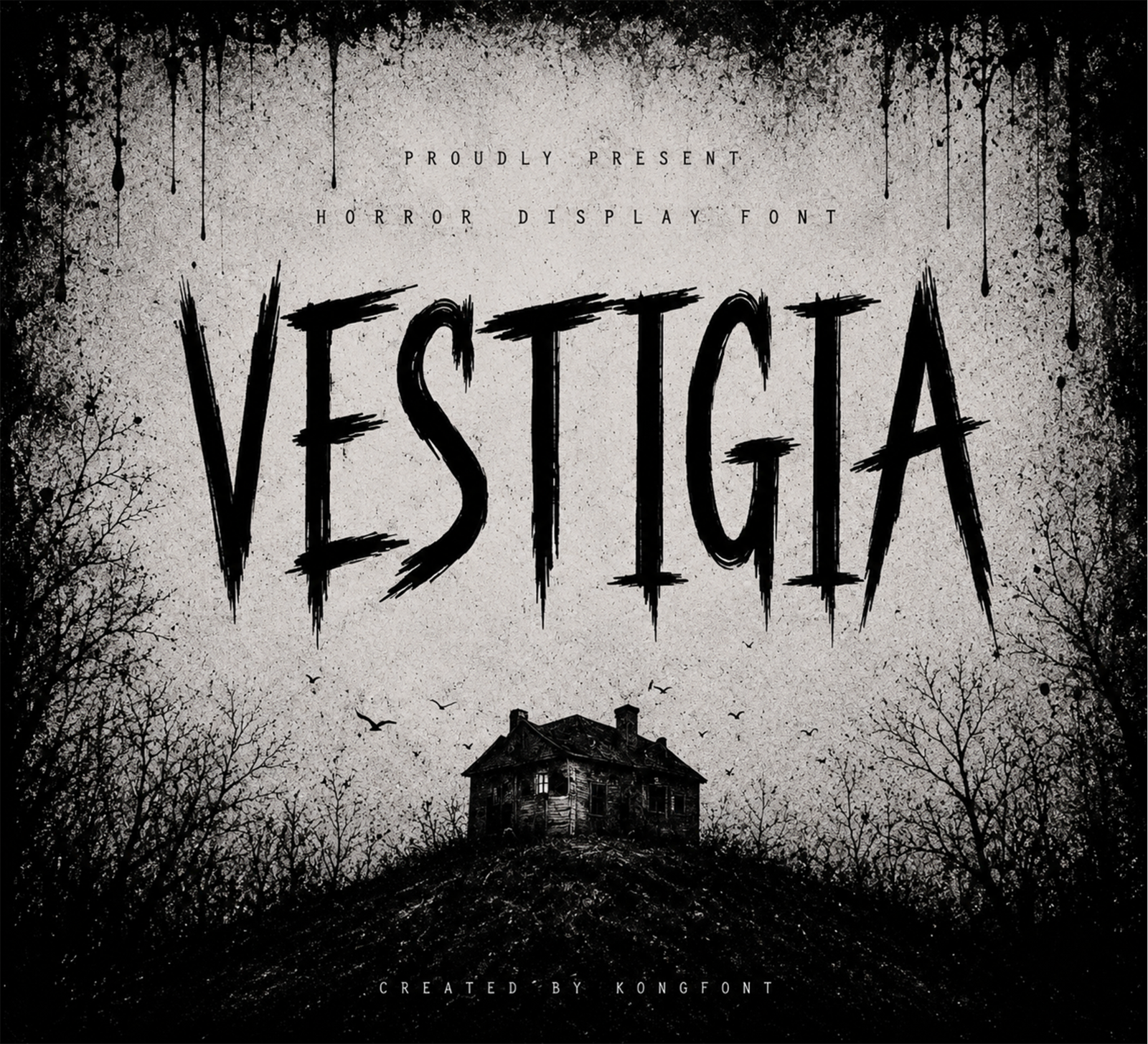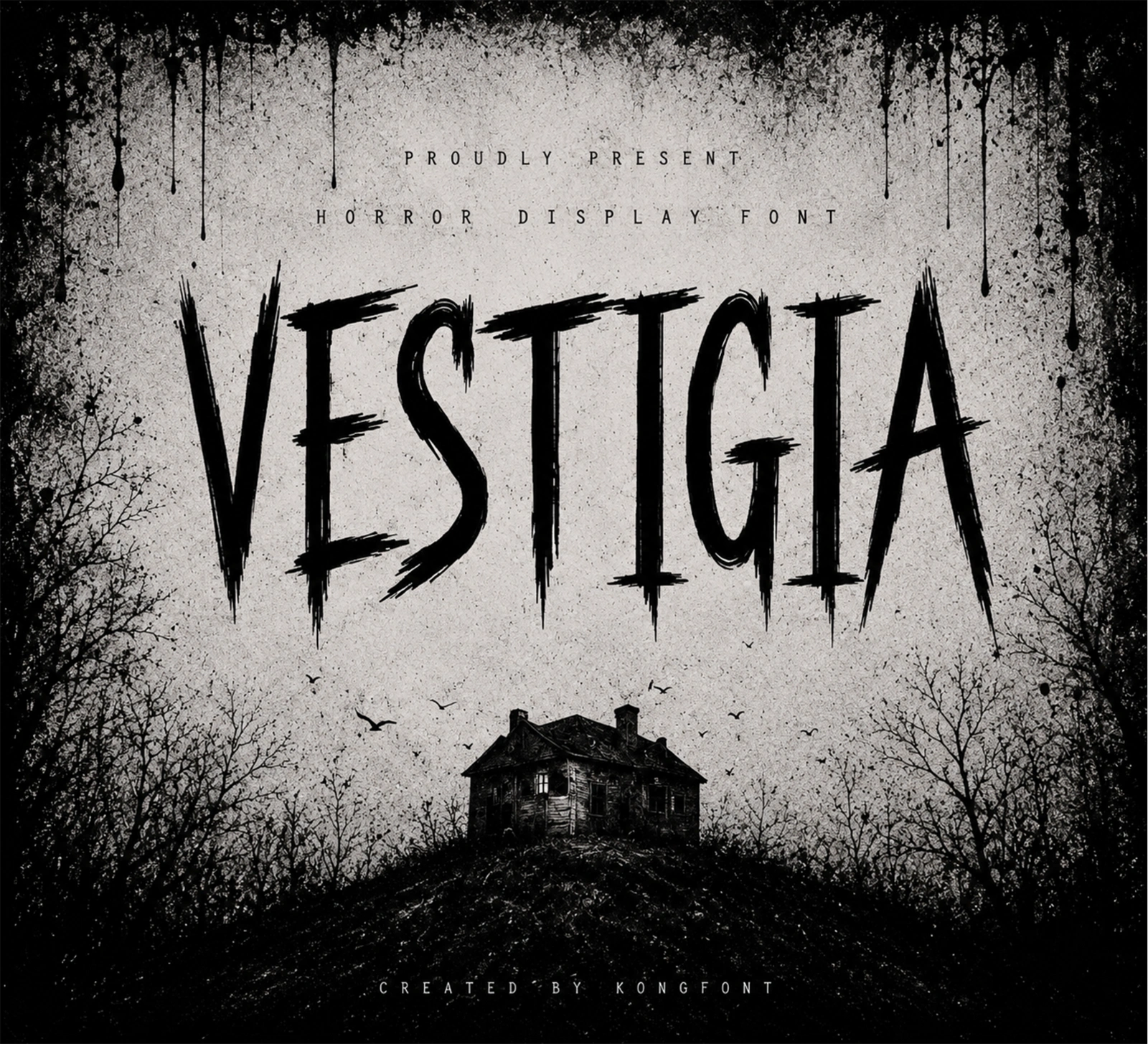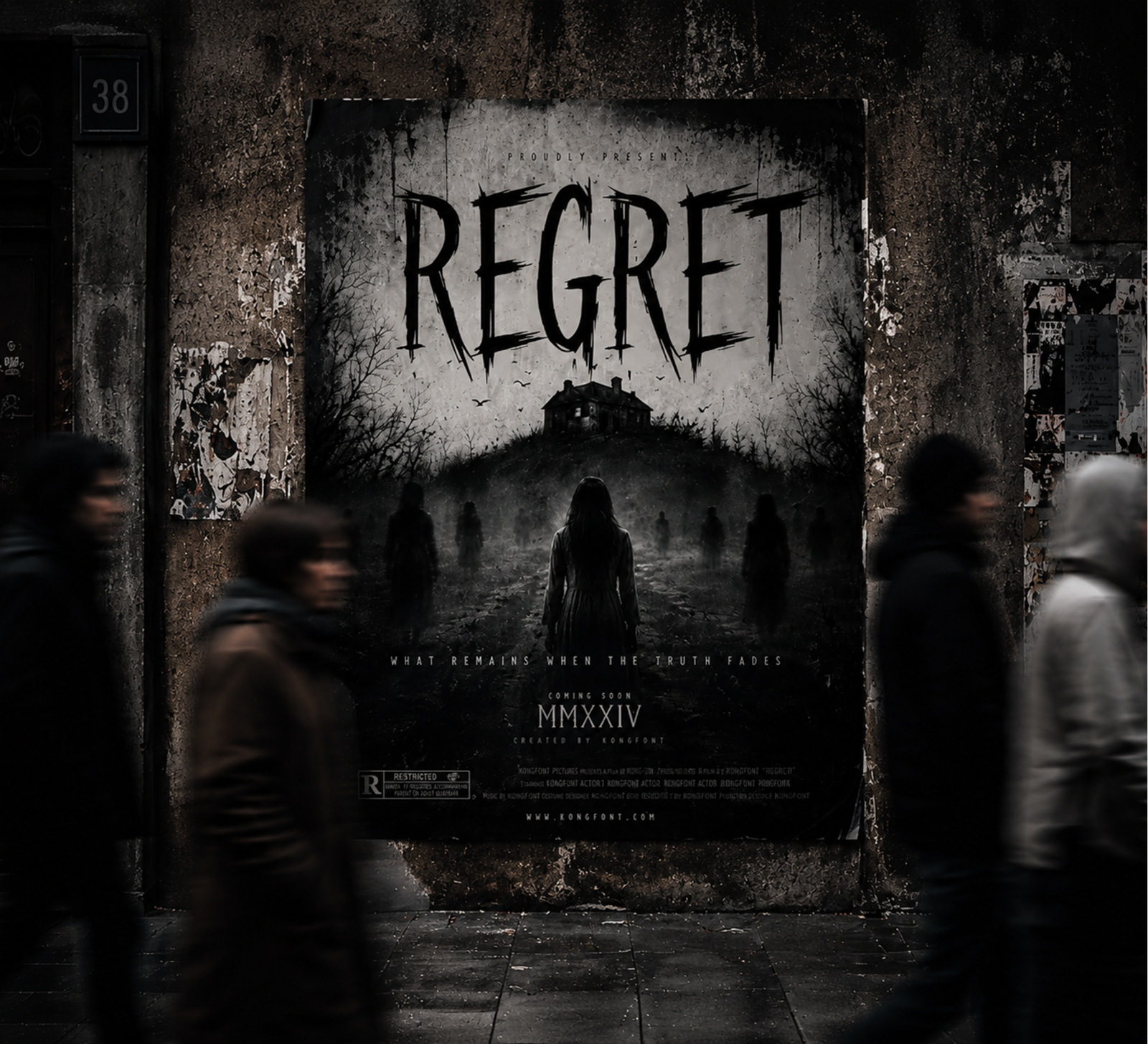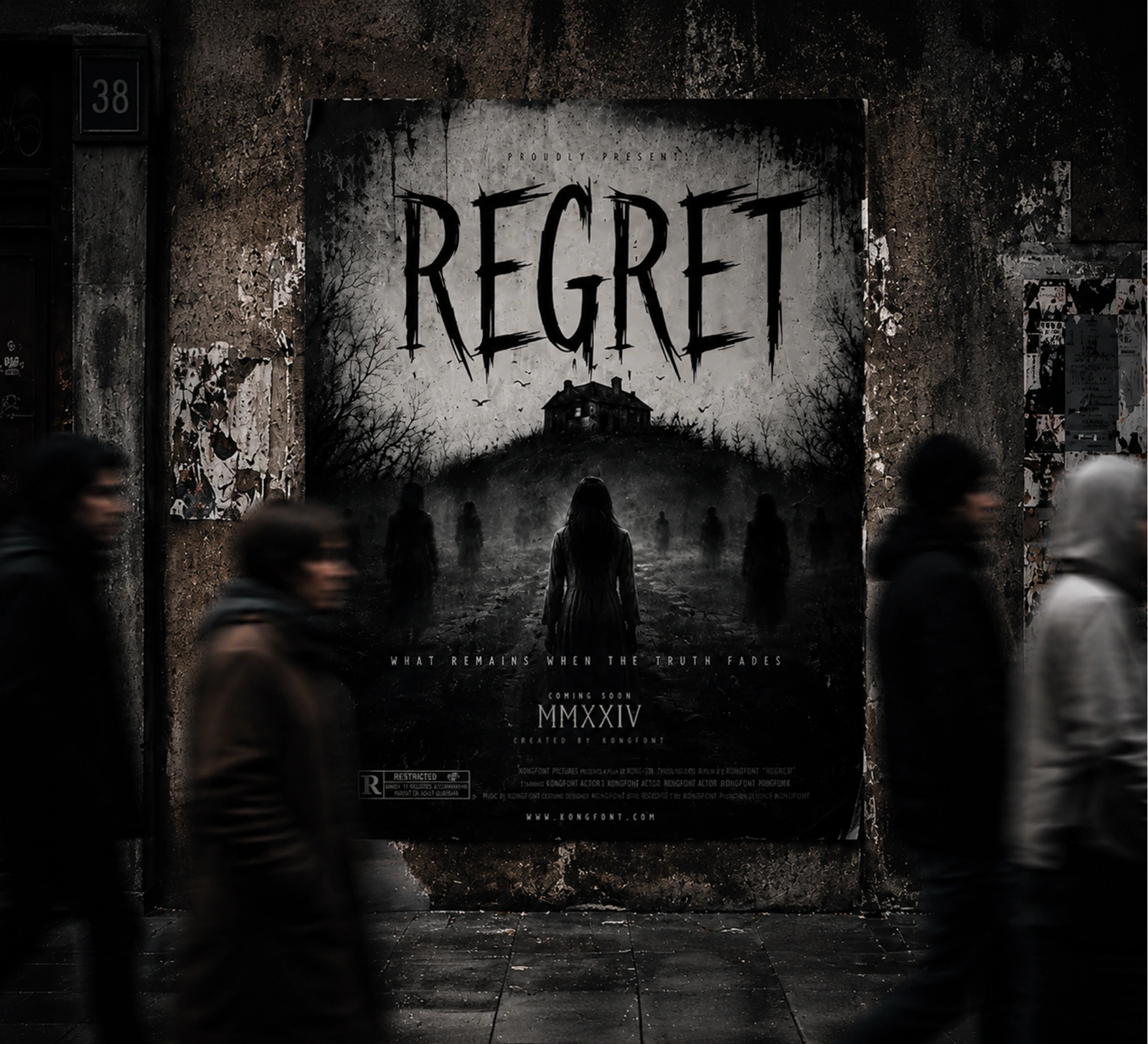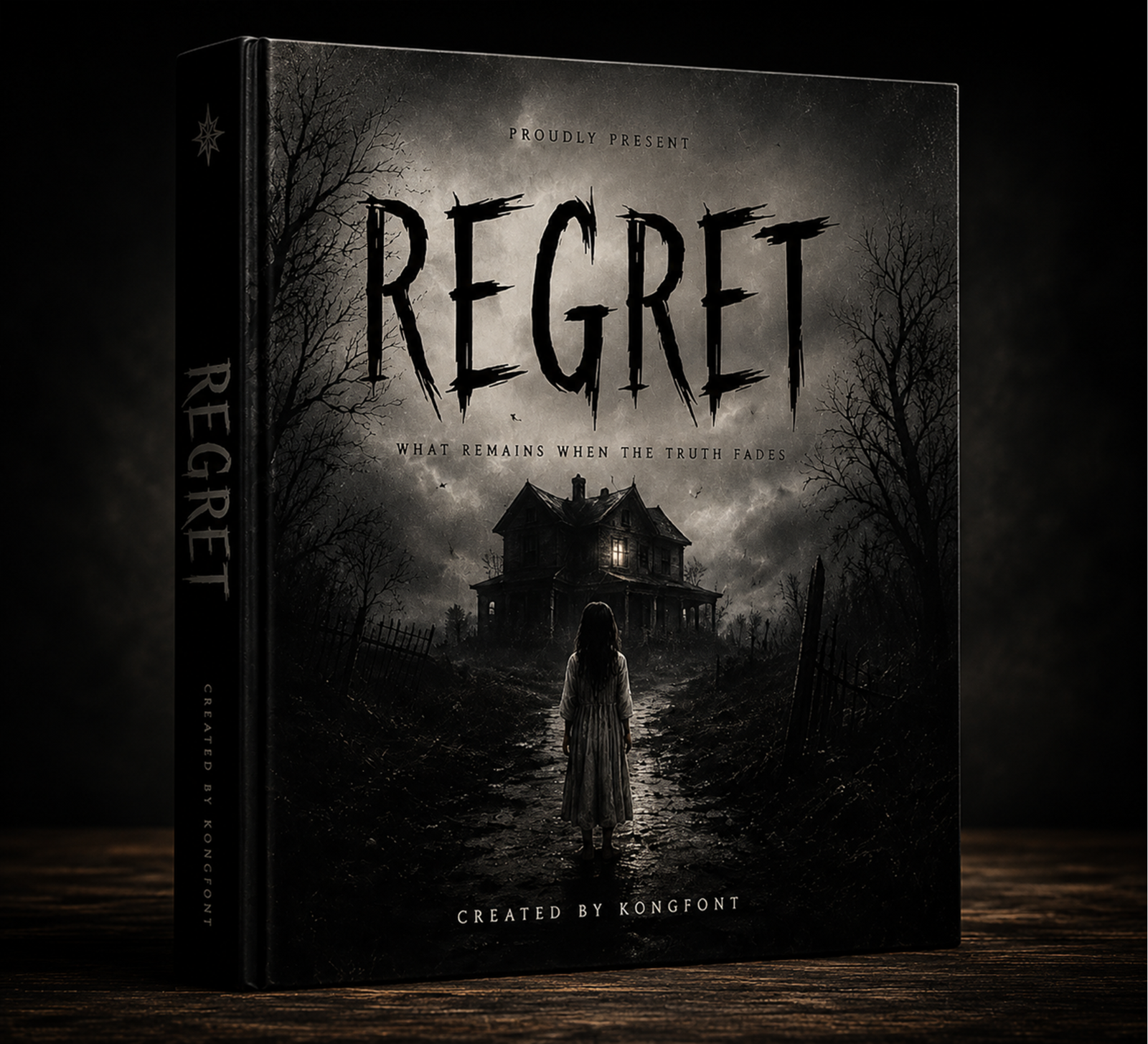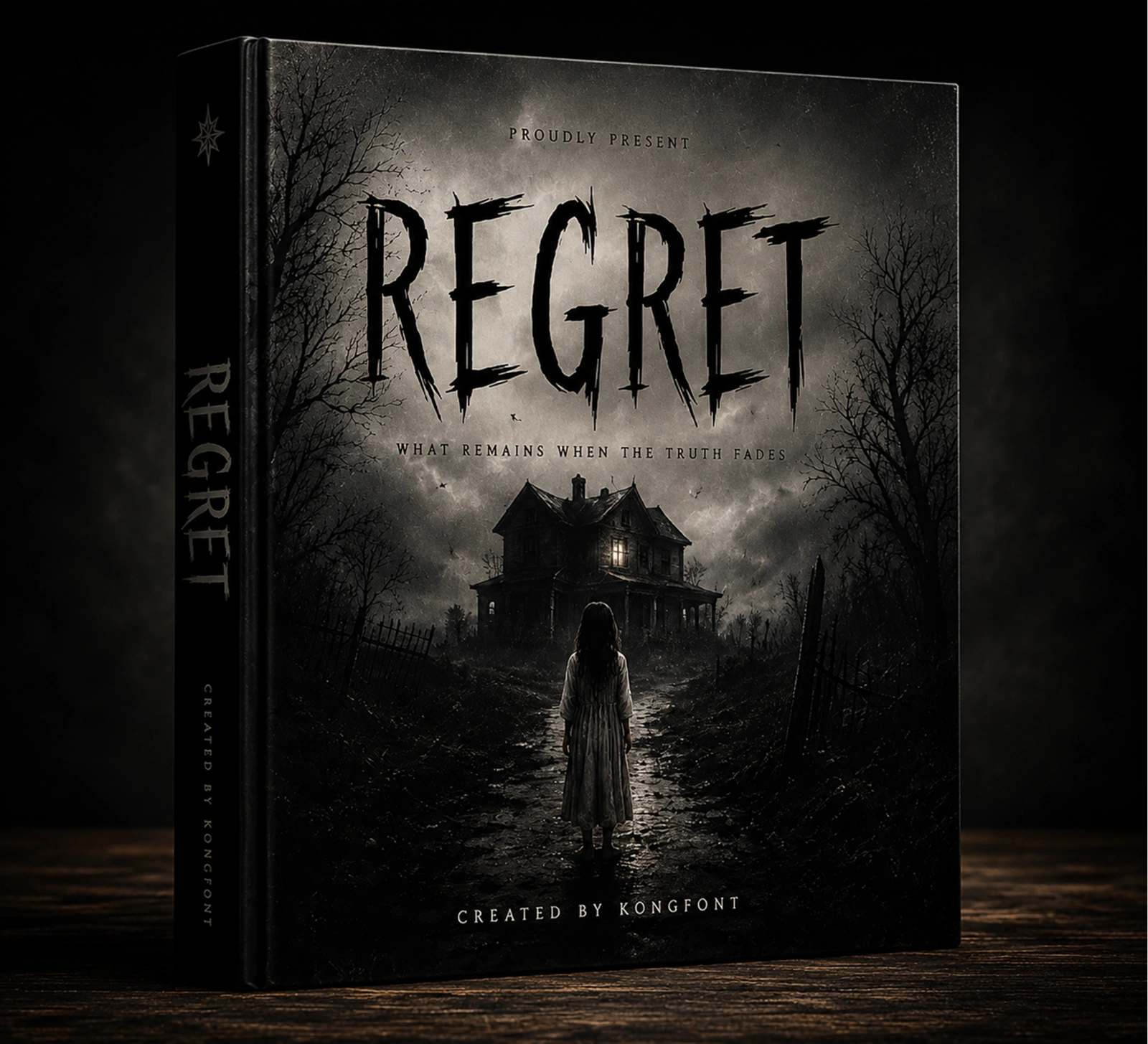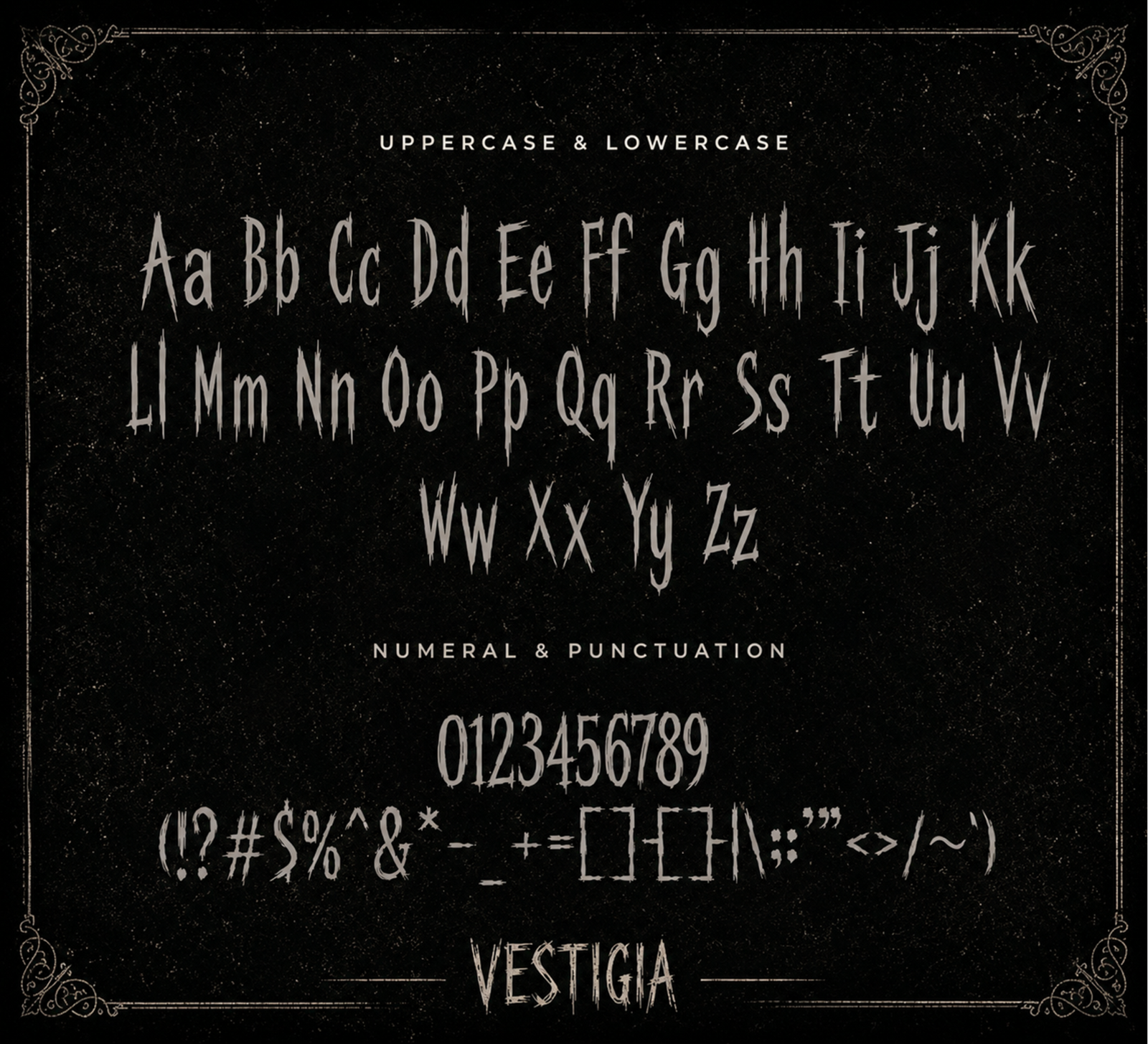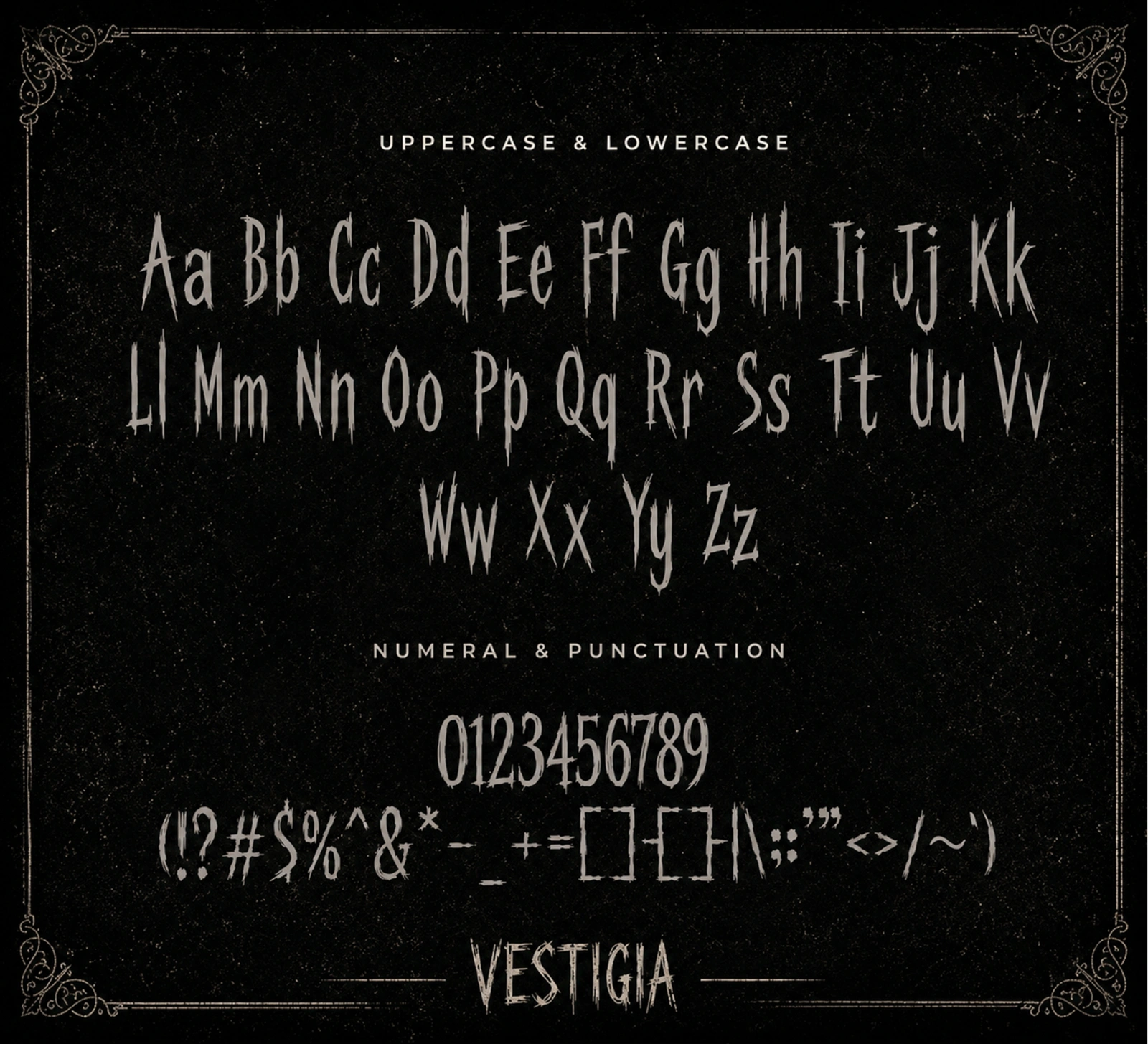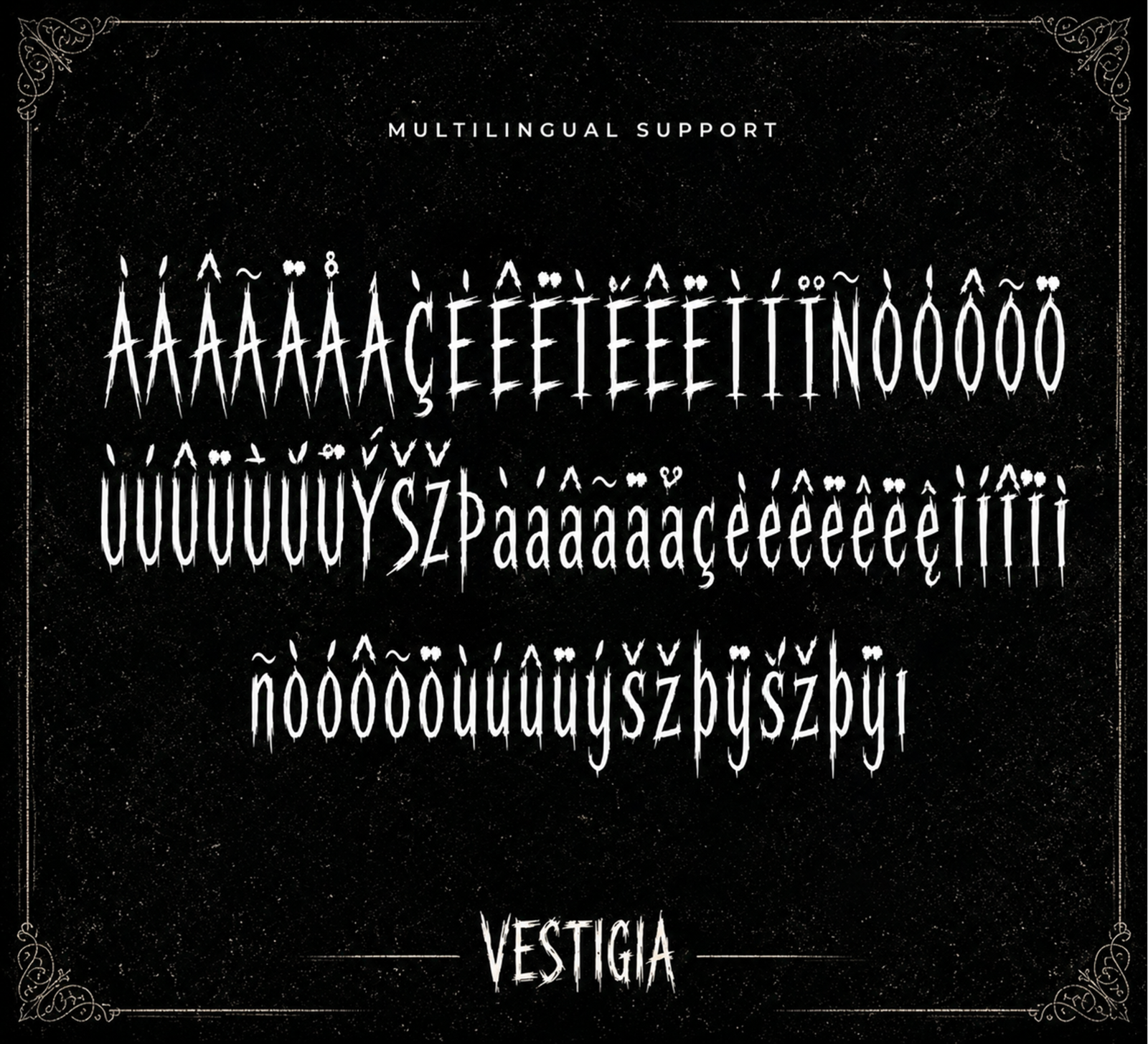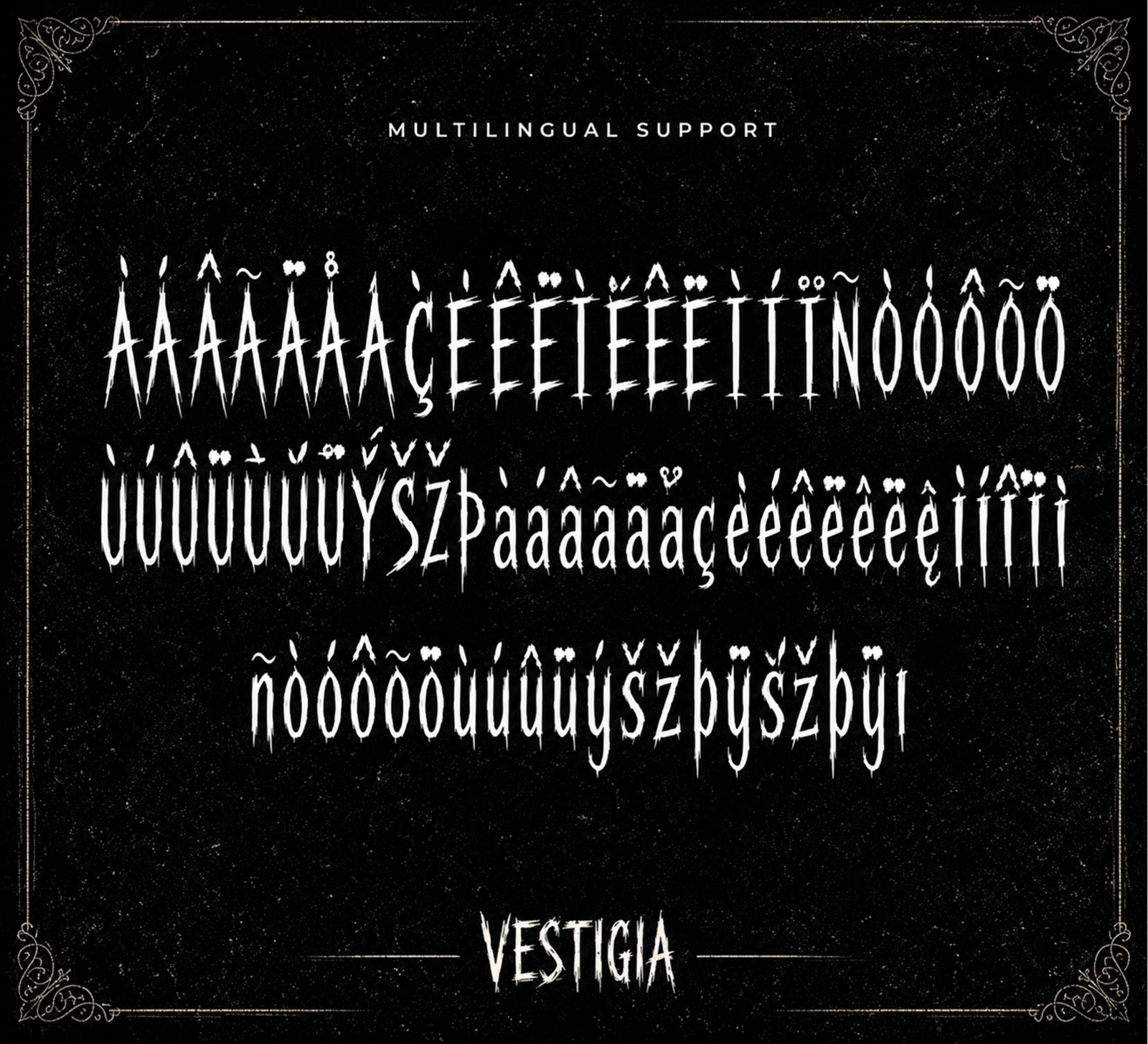
MarketplaceFontsVestigia – Modern Horror Blackletter Font
Vestigia is a bold modern horror font inspired by gothic and blackletter styles. Its dramatic blood-drip details create a dark, creepy, and cinematic look that is perfect for spooky-themed designs.
Ideal for Halloween posters, horror movie titles, book covers, party invitations, banners, apparel, social media graphics, and gothic branding.